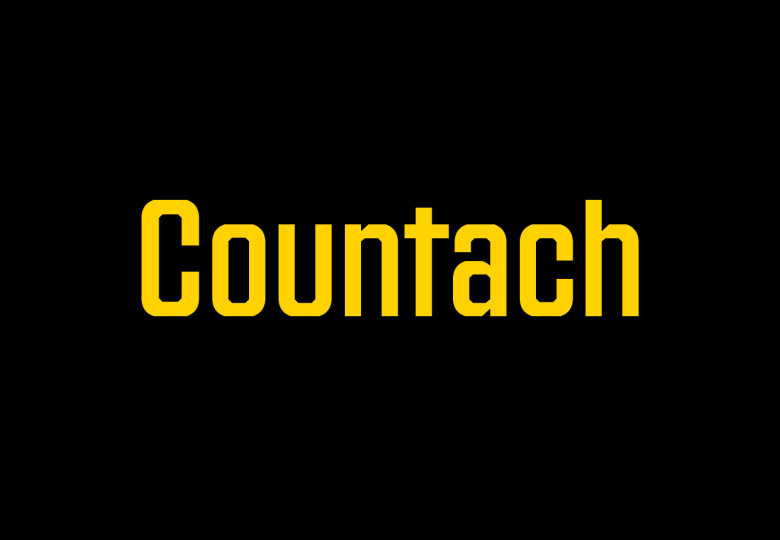
Countach Font
Countach Font is a modern and bold sans serif typeface. Its six-style family has seen improvements that extend its usage beyond its initial purpose, while well-considered details show its sophistication beyond a rigid modular grid system.
Take note of tapering where bowls join stems as well as unpredictably shaped forms for both letter ‘g’ and letter ‘y’ that make fitting easier; and its large Glyph set which includes Extended Latin as well as Cyrillic character sets with convenient index numbers that alternate for each set; convenient index numbers lets users switch easily between characters that reflects these differences!
Countach Sans Serif Font Family